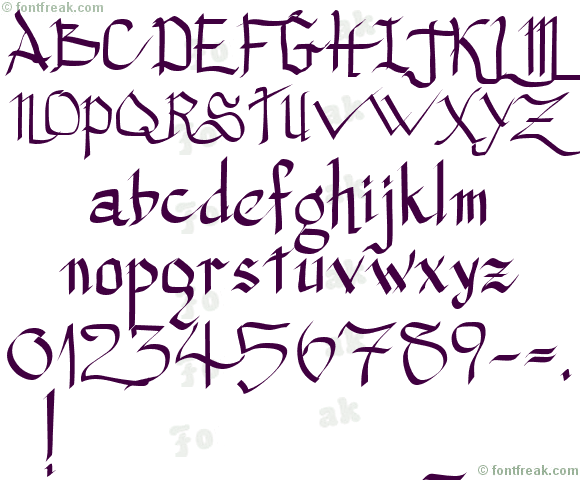
Princess Lulu
About Princess Lulu
The Princess Lulu font, designed by Stanley Roland Frantz in 1999, is a captivating decorative typeface that beautifully blends whimsy with elegance. This font style is characterized by its unique display qualities, making it an excellent choice for projects that require a touch of fantasy or charm. The strokes exhibit a moderate weight, providing a delightful balance between boldness and grace. The contrast in the letterforms adds visual interest, while the generous spacing ensures readability, even in longer texts.
Princess Lulu is particularly well-suited for a variety of creative uses. It shines in wedding invitations, where its enchanting style can enhance the romantic theme of the event. Additionally, this font makes a striking impression on movie posters, especially for films with a fairy tale or whimsical narrative. Restaurant menus can also benefit from the playful elegance of Princess Lulu, making the dining experience feel more inviting. Other suitable applications include children's book covers and event flyers, where a sense of fun and creativity is paramount.
The target audience for this font includes graphic designers looking to add a unique flair to their projects, small business owners aiming to create memorable brand identities, and content creators seeking to infuse their work with a sense of magic and charm.
What sets Princess Lulu apart is its ability to evoke a sense of nostalgia and wonder, making it a standout choice for any design project. Its free availability as a freeware font means that anyone can access this delightful typeface, making the Princess Lulu font free download an enticing option for creatives seeking to elevate their work with a touch of elegance and whimsy.